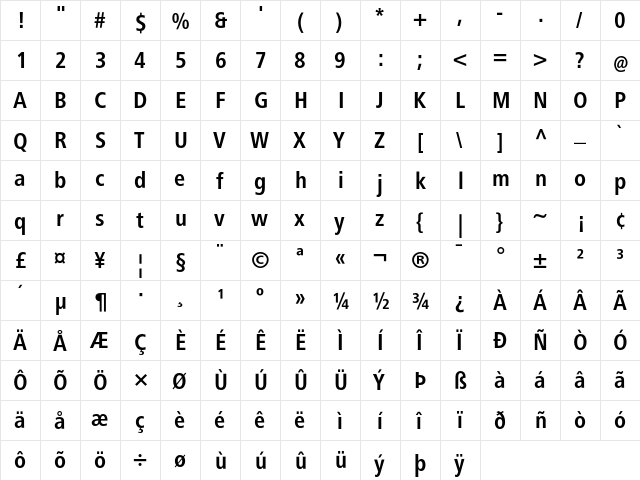
FrutigerNextLT Bold Cond
Design Context for FrutigerNextLT Typeface
FrutigerNextLT is a composed and adaptable typeface that performs quietly and consistently across a wide range of design contexts. Its bold stroke weight gives it real presence on the page. The condensed width makes it efficient for tight spaces without sacrificing legibility.